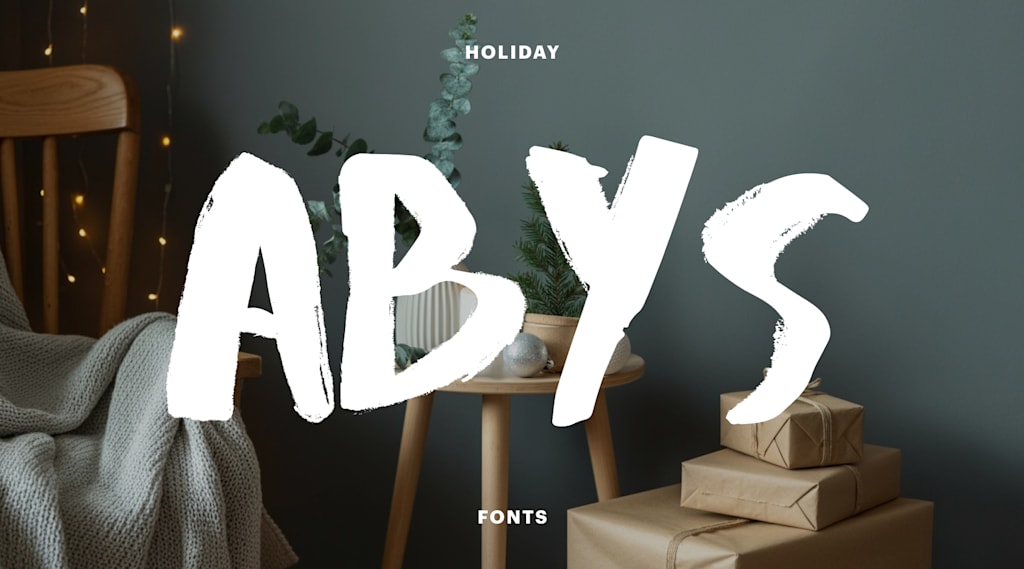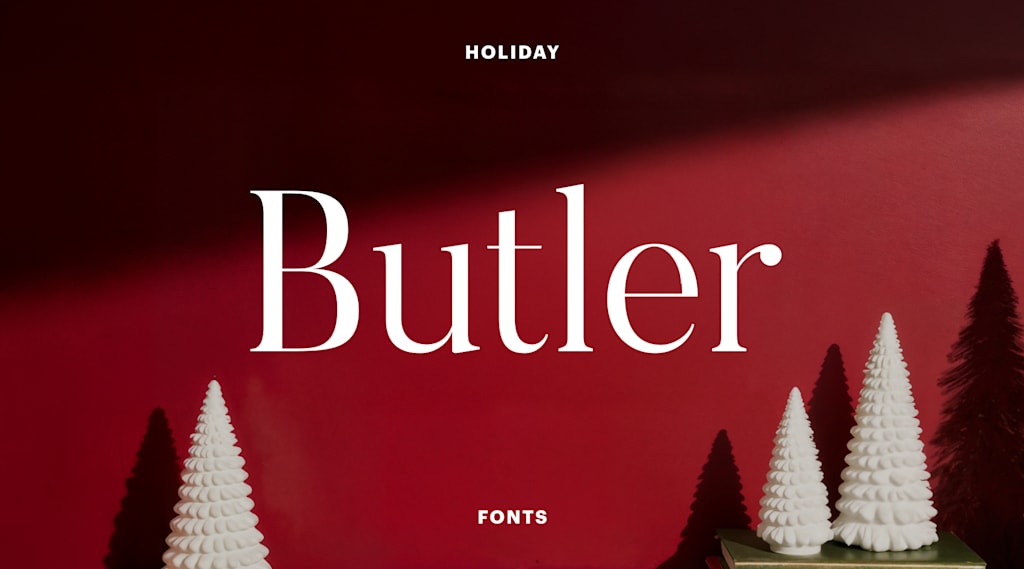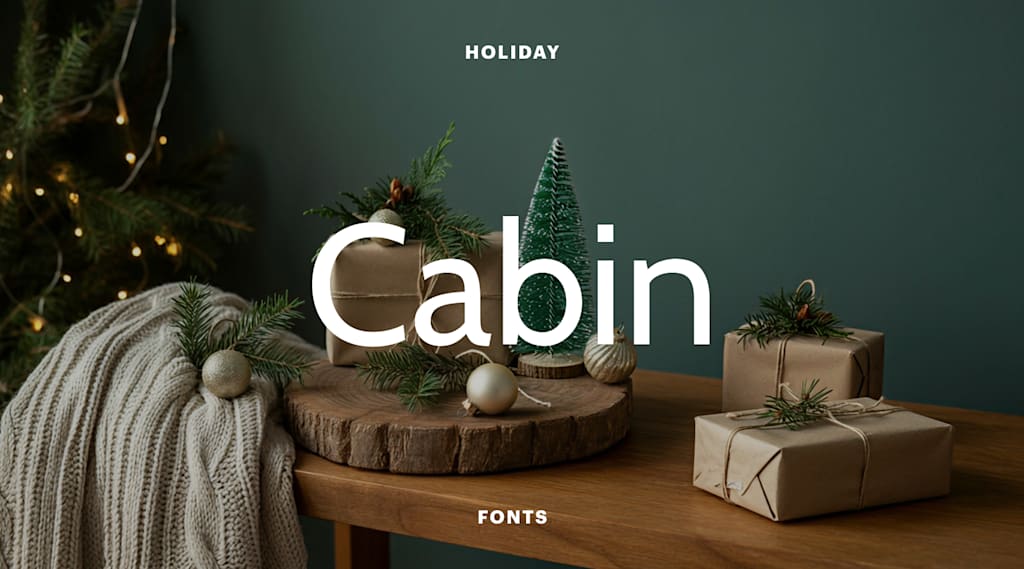
The holiday season is here again! In the spirit of giving, here are 31 free holiday fonts to use for corporate messages, social posts, flyers, packaging and greeting cards. These Christmas fonts range from fully festive options with swooping script and snow-covered letterforms to simple and contemporary fonts.
When sending greetings or announcing offers, choosing a font that shouts “Christmas” may help your business stand out. But the usual rules around how to choose fonts still apply: important information should be clear and legible, and fonts should complement each other on the page. Trust your instincts, follow brand guidelines and take time to review different options. These holiday fonts are free for commercial use, making them ideal for small businesses.
- Holiday-season messaging and marketing can help raise visibility, and the Christmas font you use is almost as important as what you say.
- Each font suits different holiday messaging, from excitement to tradition. Consider how your font choice relates to your brand and wider marketing tactics.
Script fonts
These flowing fonts mimic handwriting, perfect for elegant greeting cards, holiday menus and promotional postcard fonts. Use script fonts for headline text and to create a festive atmosphere, but not for body copy, as it won’t be readable at smaller sizes.
1. ChopinScript
With everyday elegance and a formal but friendly feel, ChopinScript is a great font for holiday event invitations and greeting cards. It’s easy to read compared to some of its fellow script fonts, too.
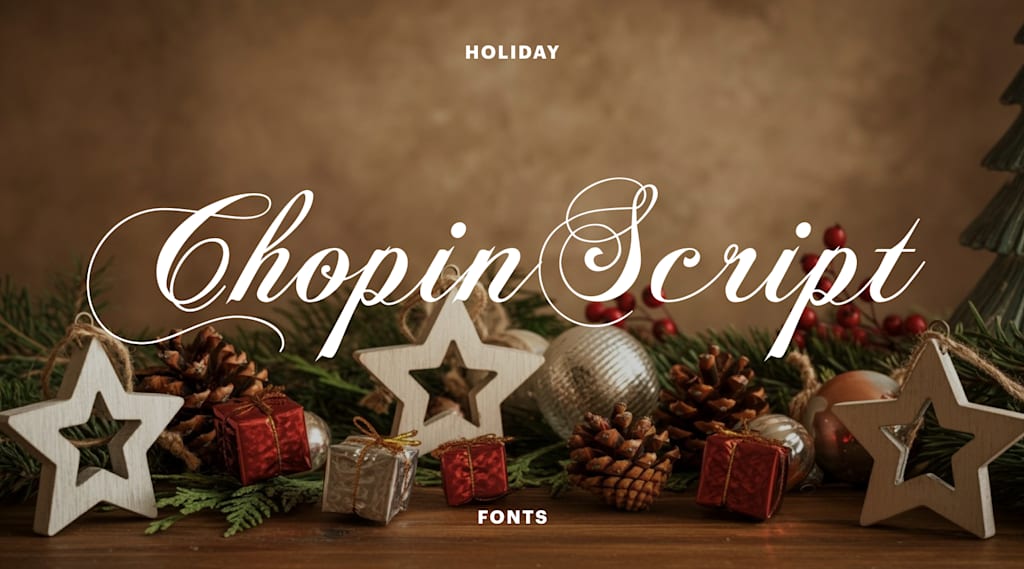
2. Ochre Script
This swooping, romantic calligraphic font is great for handwritten-style holiday invitations, Christmas social media posts and holiday greeting cards for businesses.
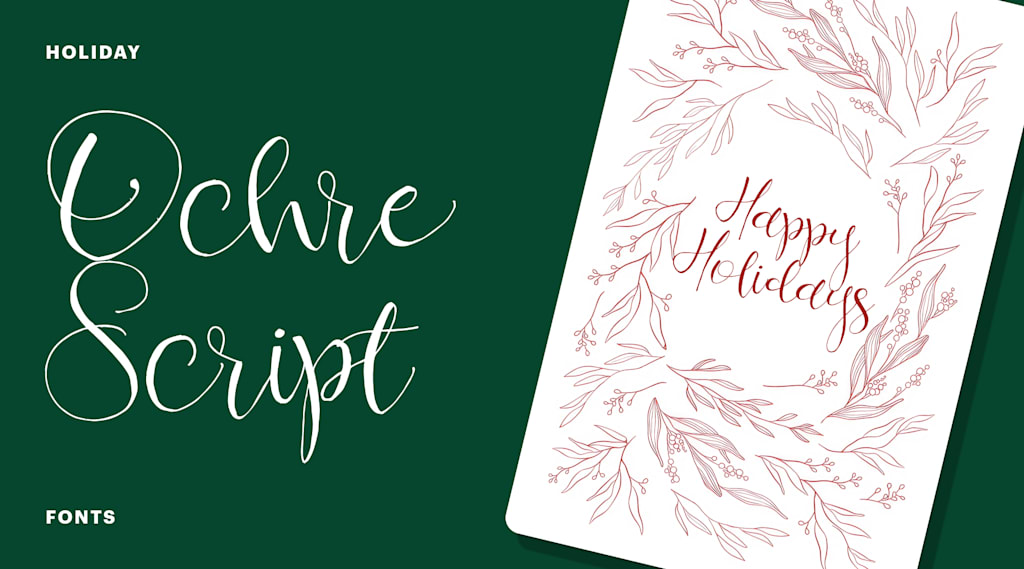
3. Fresh Orange
Fresh Orange is a brisk and lively font choice for brands that want a handwritten script that isn’t too traditional. Its energetic feel is great for a festive look without going full-on Christmas.
4. Good Vibes
A fun and funky font with hints of the 60s and 70s, Good Vibes will make a social media message pop or could be a playful addition to seasonal product branding.
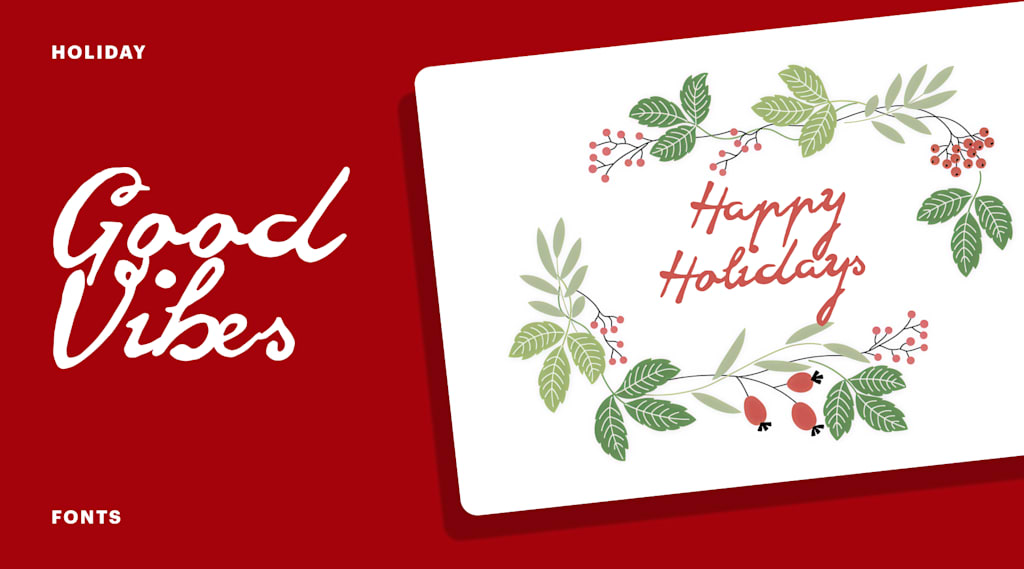
5. Noelan
Its playful twists give this font a sense of fun that can make any Christmas marketing, from signage to social media posts, feel festive.
6. League Script
The carefully flowing lines of League Script feel considered but intimate. This is a great font option for a brand that wants to evoke sincerity and a personal touch in printed or digital communication.
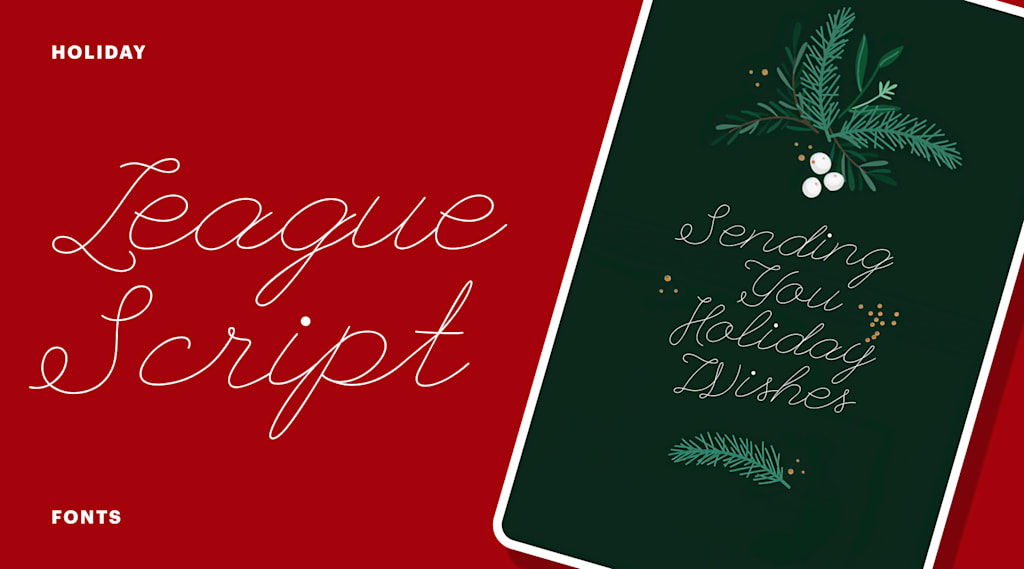
7. Abys
With its irregular, rough feel, this handwritten brush font is great for adding a little edge to branded seasonal messaging, bringing a modern and exciting twist to headlines or social media posts.
Serif fonts
Serif fonts, which feature small strokes at the end of letters, often have a traditional feel. Serifs make great holiday fonts for printed text, as well as holiday packaging, signage and upscale branding.
8. EB Garamond
Looking to present your business as reliable, classy and professional when the others are covered in tinsel? This publishing industry favorite is a great font option, especially for long body copy and text-heavy promotional materials such as brochures. Download the font in regular, italics and bold styles for different uses.
9. Butler
With old-school weight and clarity plus contemporary curves, the Butler typeface is recommended for posters, headlines and professional design projects.
10. Playfair Display
This sharp font, inspired by 18th-century printing trends, has sophisticated lines that still feel contemporary, making Playfair Display the perfect choice for high-end brands looking to communicate timelessness.
11. Sunny Winter Font
Because for many, Christmas isn’t covered in a blanket of snow, this fun, slimline font, inspired by a sunny holiday season in Texas, is great for greeting cards and flyers, especially in the Southern hemisphere.